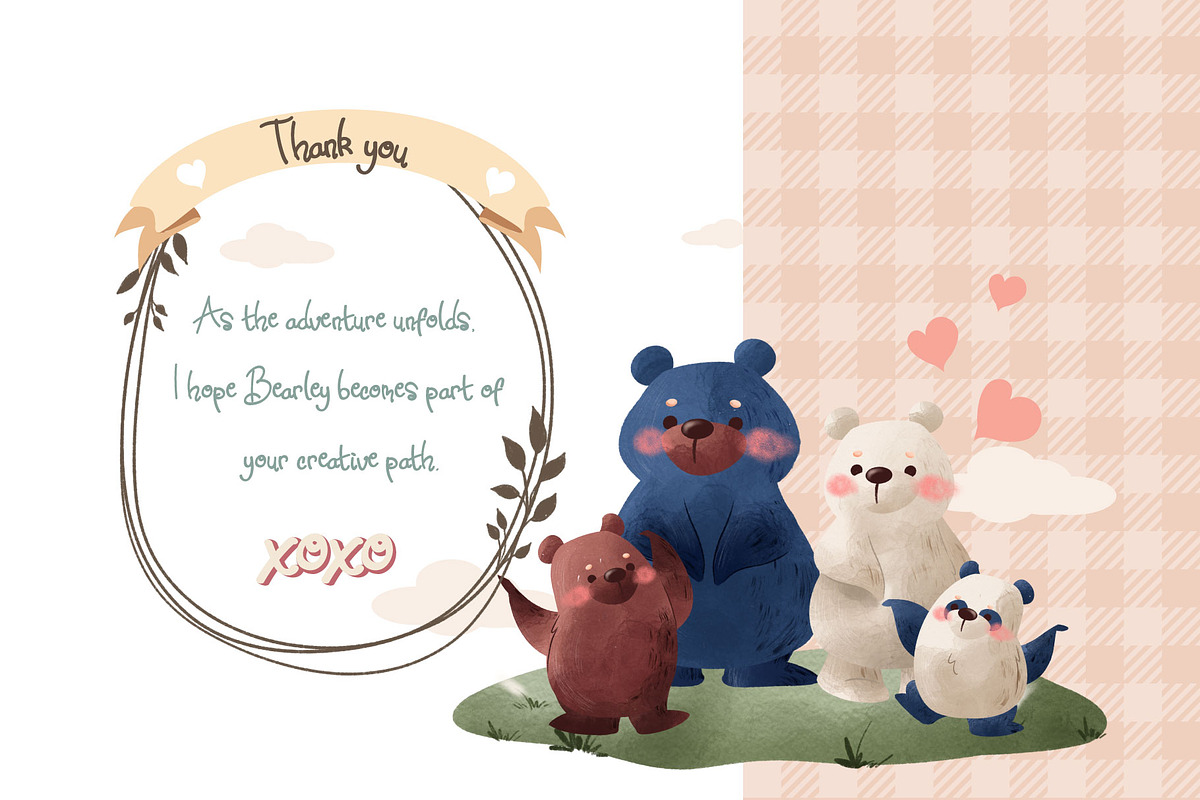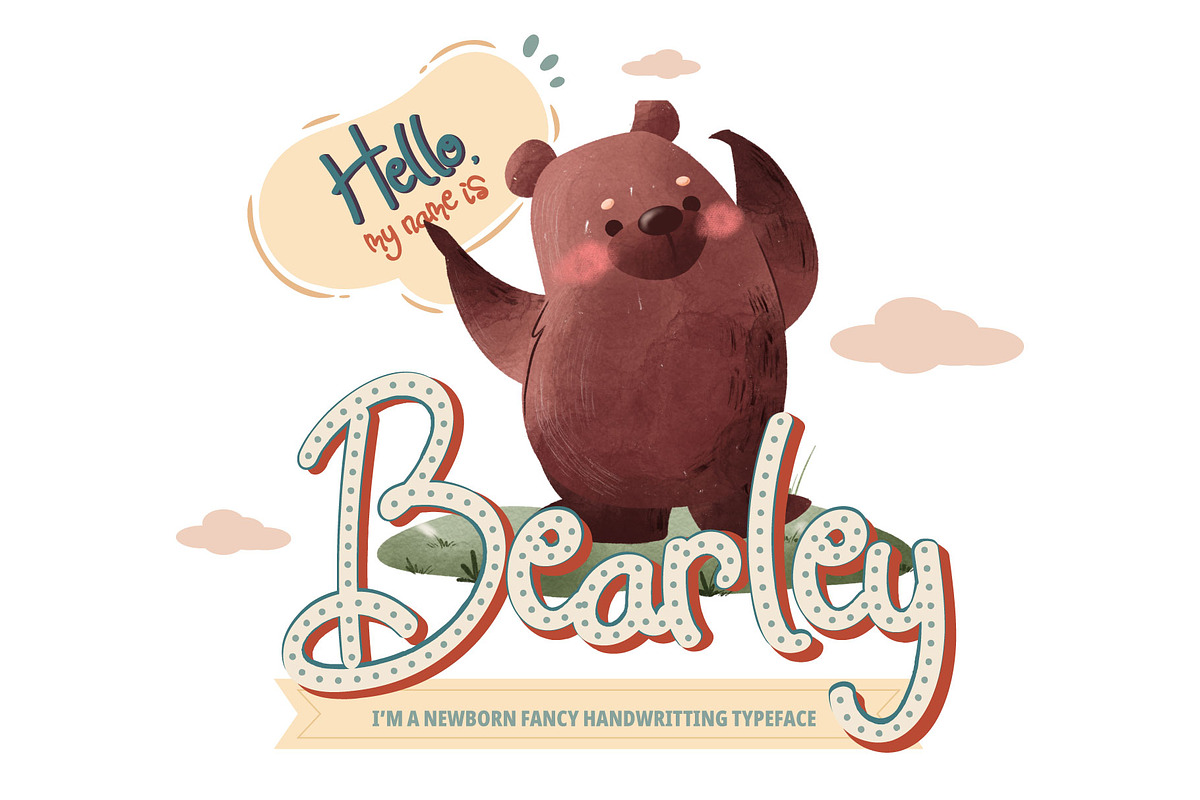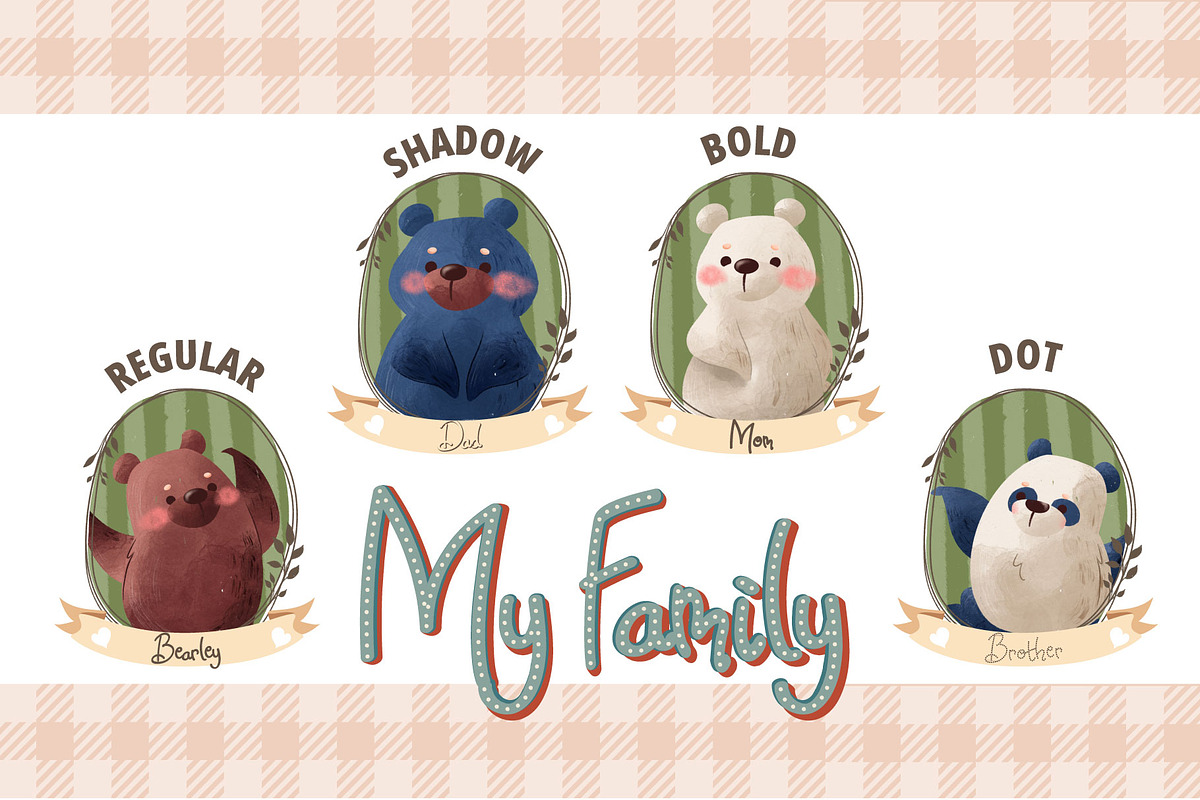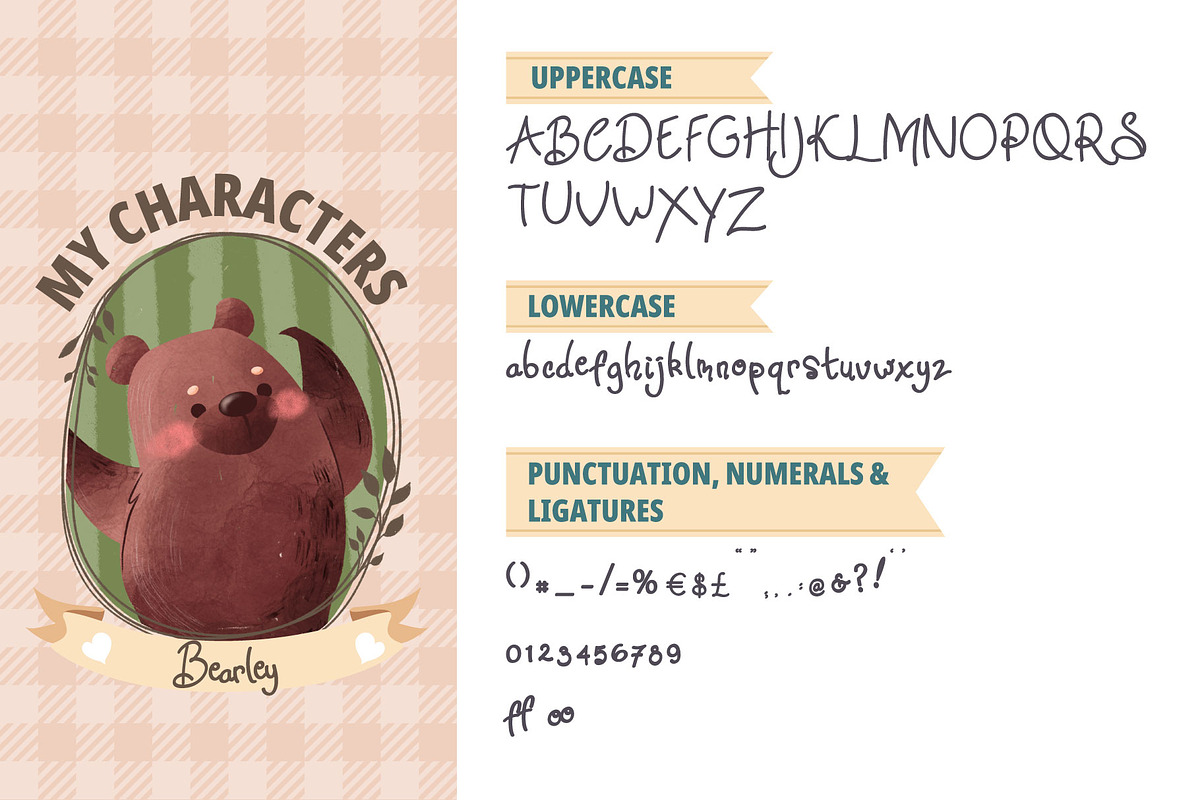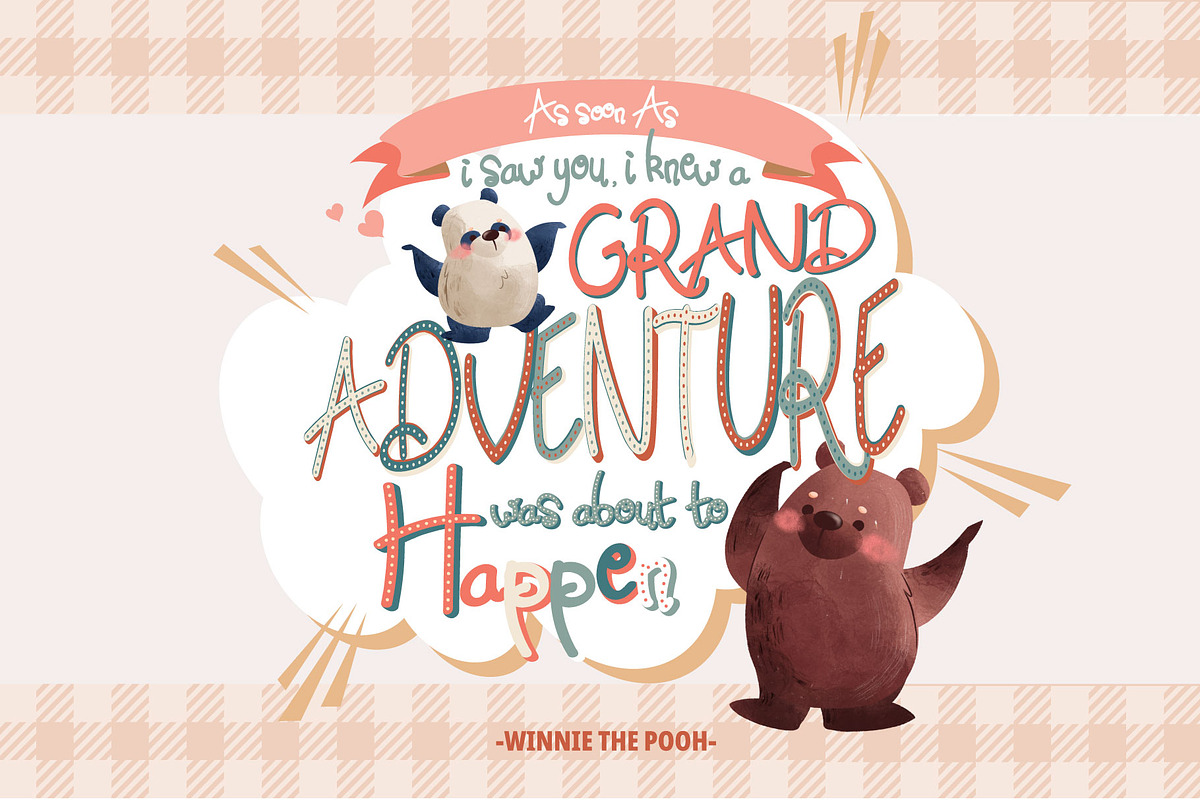
Bearley
Bearley is a layered typeface inspired by handwriting. They are perfect to use for: logos, branding, home decor, signs, mugs, shirts, pantry labels, stickers, greeting cards, posters, social media, planner prints, and etc. Just have a great fun with Kama on your design!
- Bearley Regular (UPPERCASE,LowerCase,Numeric,Punctuation,Ligature characters)
- Bearley Bold (UPPERCASE,LowerCase,Numeric,Punctuation,Ligature characters)
- Bearley Shadow (UPPERCASE,LowerCase,Numeric,Punctuation,Ligature characters)
- Bearley Dot (UPPERCASE,LowerCase,Numeric,Punctuation,Ligature characters)